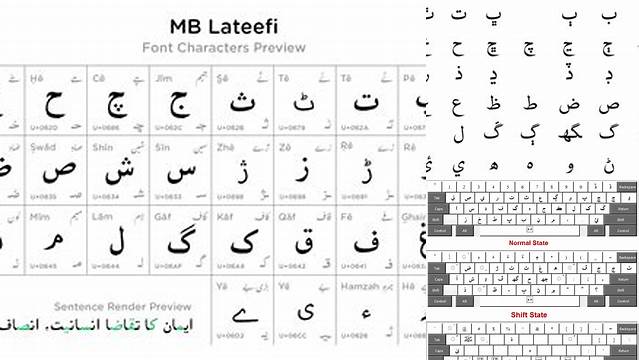
Are you looking to download MB Lateefi Sindhi fonts in TTF format? Well, guys, you've come to the right place! In this comprehensive guide, we'll dive deep into everything you need to know about MB Lateefi fonts, including where to find them, how to install them, and how to use them in your projects. Whether you're a designer, a student, or simply someone who loves the Sindhi language, this article is for you. We'll also explore the beauty and significance of the Sindhi script and the importance of having access to high-quality fonts like MB Lateefi. So, buckle up and get ready to embark on a journey into the world of Sindhi typography!
What are MB Lateefi Sindhi Fonts?
Let's kick things off by understanding what exactly MB Lateefi Sindhi fonts are. These fonts are a specific typeface designed to render the Sindhi script beautifully and accurately. The Sindhi script itself is a modified version of the Arabic script, used to write the Sindhi language, which is spoken by millions of people primarily in the Sindh province of Pakistan and in India. The script is known for its elegant curves and unique letterforms, making it visually distinct and aesthetically pleasing. MB Lateefi fonts are designed to capture this elegance while ensuring readability and usability across various platforms and devices. They come in TTF (TrueType Font) format, which is a widely supported font format compatible with Windows, macOS, and other operating systems. This compatibility is crucial because it means you can use these fonts in a wide range of applications, from word processors and graphic design software to web design tools and mobile apps. The MB Lateefi family often includes various weights and styles, such as regular, bold, italic, and more, giving you flexibility in your design choices. Using a well-designed font like MB Lateefi is essential for conveying your message effectively in Sindhi. Imagine trying to read a beautifully written poem in Sindhi, but the font is clunky and hard to decipher. The aesthetic appeal would be lost, and the message might not come across as intended. That's why having access to high-quality fonts is so important, especially for languages with intricate scripts like Sindhi. MB Lateefi fonts are designed to preserve the artistic integrity of the Sindhi script while ensuring that the text is clear, legible, and visually appealing. This is especially important in the digital age, where a significant amount of communication happens online. Whether you're creating a website, designing a poster, or writing a document, using the right font can make all the difference. It's like choosing the right frame for a painting – it enhances the artwork and makes it even more impactful. So, if you're serious about using Sindhi in your projects, investing in or finding free, high-quality fonts like MB Lateefi is a step you won't regret.